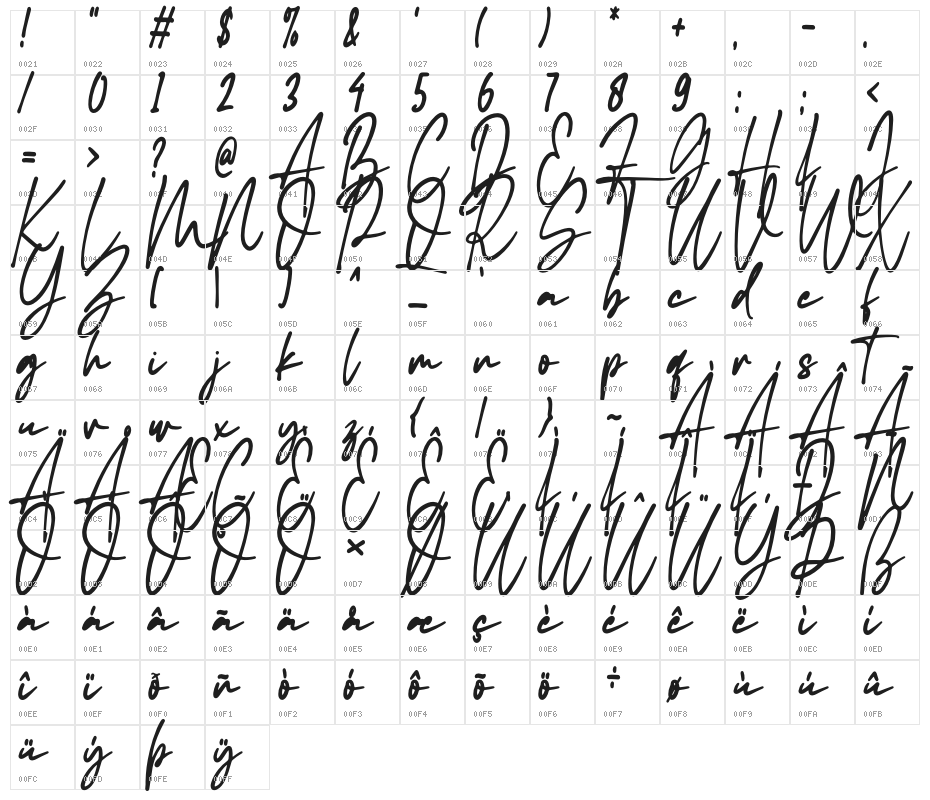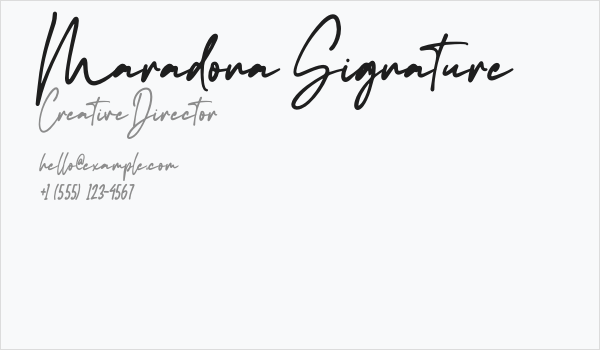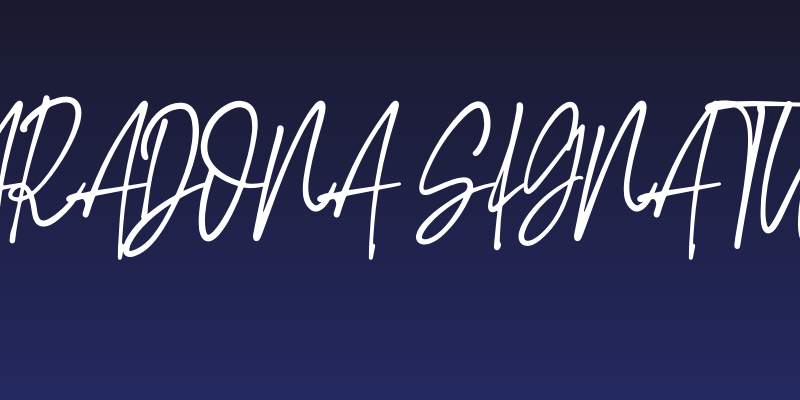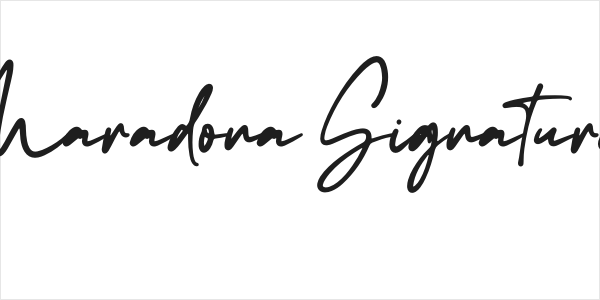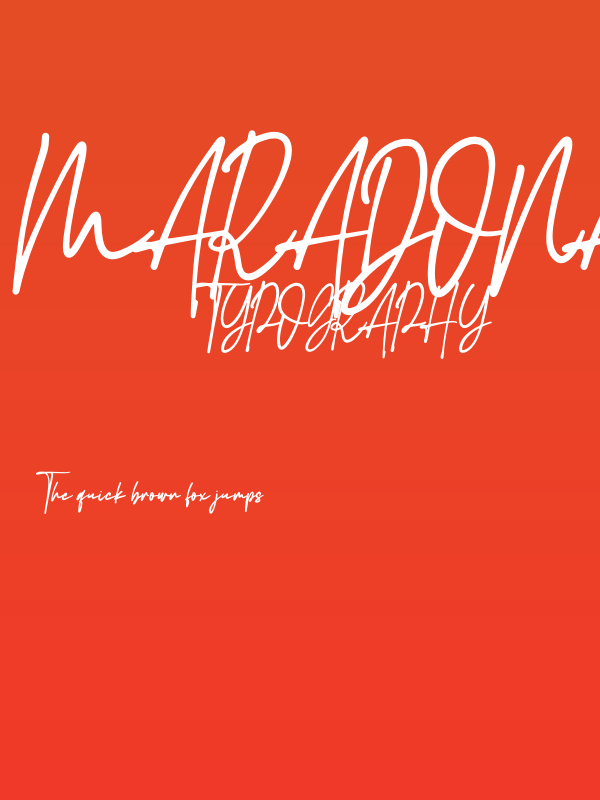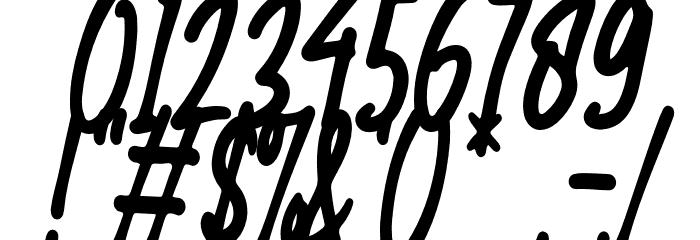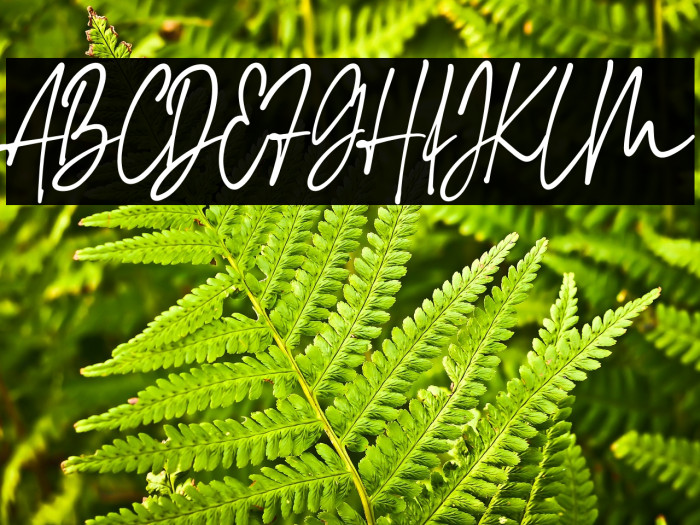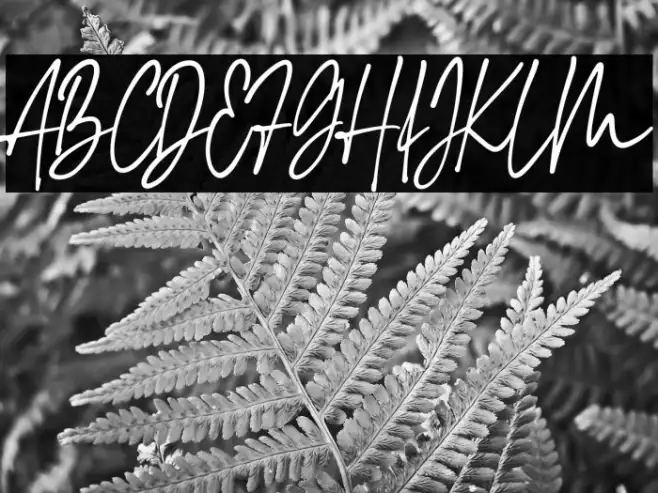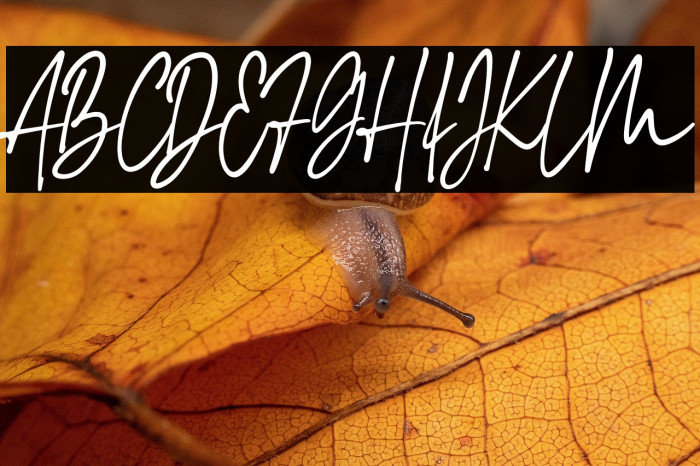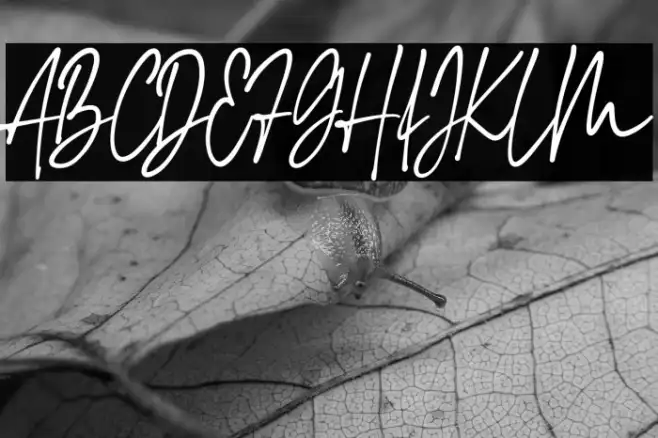
Maradona Signature Font
Maradona Signature Description
This font features a dynamic and fluid script style, reminiscent of a personal signature. The letters are interconnected with smooth, flowing lines, creating a sense of movement and elegance. The uppercase characters maintain a consistent height, while the lowercase letters exhibit a slight slant, enhancing the handwritten feel. The numerals and special characters are bold and expressive, adding to the overall artistic flair. This font captures the essence of spontaneity and creativity, making it suitable for projects that require a personal touch.
| Use Case | Logos, Signatures, Invitations |
| Proposed Projects | Ideal for branding, invitations, greeting cards, and any project that benefits from a personal, artistic touch. |